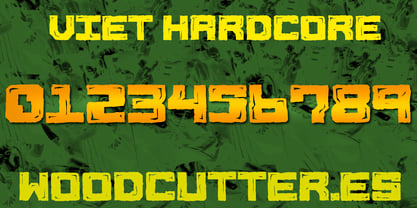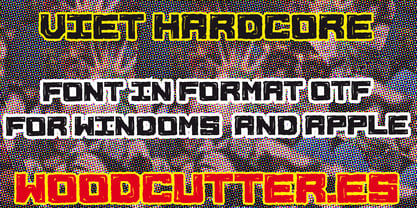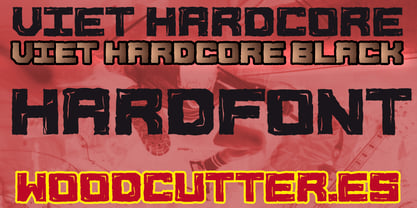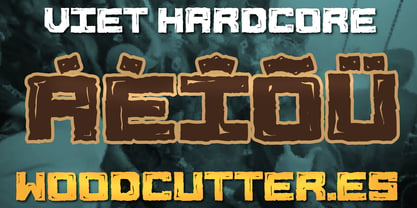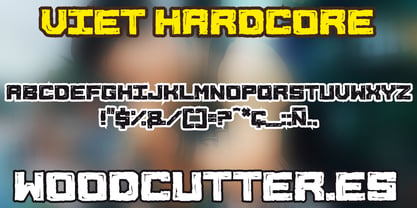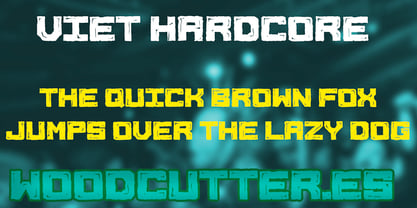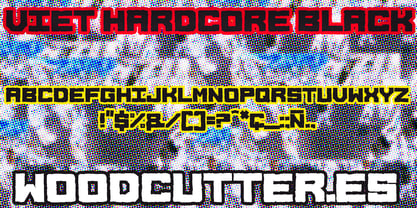
Viet Hardcore
The Viet Hardcore Font Family was designed by Jordi Manero and published by Woodcutter. Viet Hardcore contains 2 styles and family package options. More about this family
Viet Hardcore is an all-caps typeface with accents that merges the graphic brutality of Soviet-inspired design with a modern edge. Its letters are bold, extra square, and structurally firm—recalling concrete blocks, monumental architecture, and the visual language of communist propaganda. Each character is built with geometric precision yet maintains a subtle handcrafted flair that adds authenticity and grit.
The defining feature of Viet Hardcore is the subtle light shadow carved into the corners of each letter, creating a three-dimensional, embossed effect. This detail adds volume and dramatic presence, making the words feel engraved or powerfully stamped onto a surface. It’s ideal for posters, band logos, editorial design, album covers, or branding with a revolutionary attitude.
The type family is completed with Viet Hardcore Black, a heavier and even more robust version with no shadows or extra decorations—perfect for high-impact use where clarity and boldness are essential.
Together, both versions form a cohesive and assertive family, offering designers an expressive tool to convey strength, identity, and visual rebellion. Viet Hardcore is unapologetically bold—loud, firm, and uncompromising.